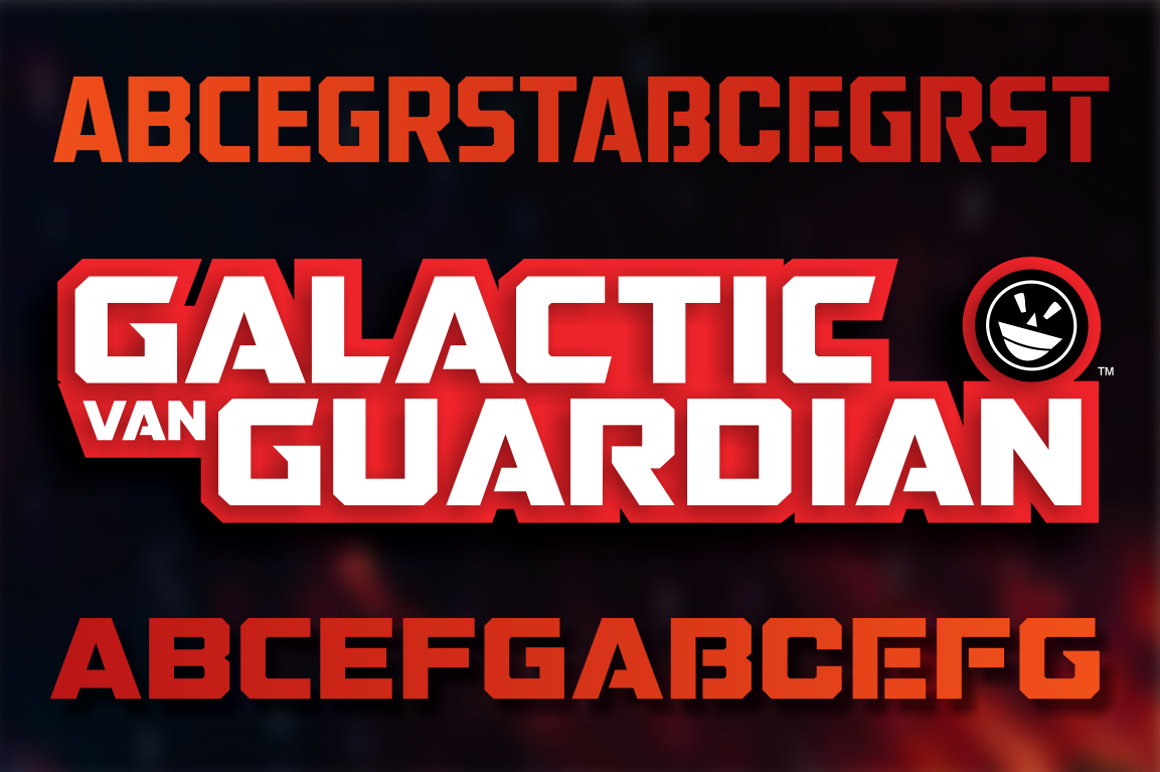
FTY GALACTIC VANGUARDIAN
FTY GALACTIC VANGUARDIAN is a display sans and grunge font family. This typeface has three styles and was published by The Fontry.